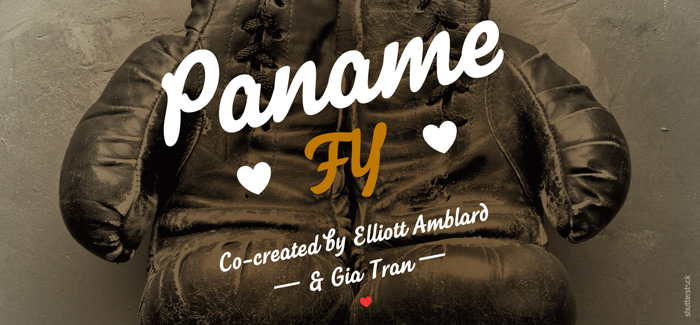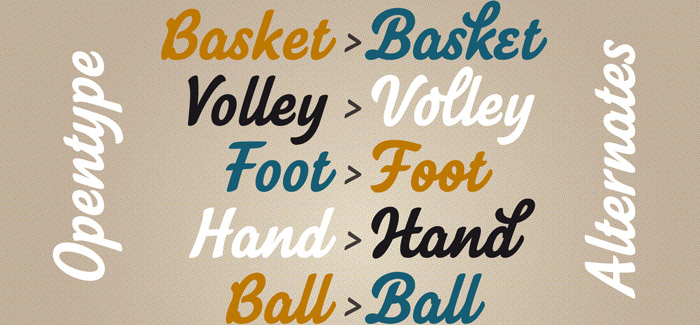
Paname FY font
Paname FY font is a hot new release by Fontyou (co-created by Elliott Amblard and Gia Tran – Klaus FY font, Beaurencourt FY font). It’s a rounded brush script face with excellent legibility and contrast, perfect for screen and print use. Paname has balanced letterforms flowing like waves from one character to another. Special attention is paid to Opentype features like alternates, swashes and ligatures – you will have enough of them to customize almost every letter, word or phrase. Looking very authentic, yet friendly with a touch of happiness, Paname FY font will add a lot of fun and emotions to your package design, poster, t-shirt and even logo or a brand name.
Designers: Elliott Amblard, Gia Tran
Publisher: Fontyou